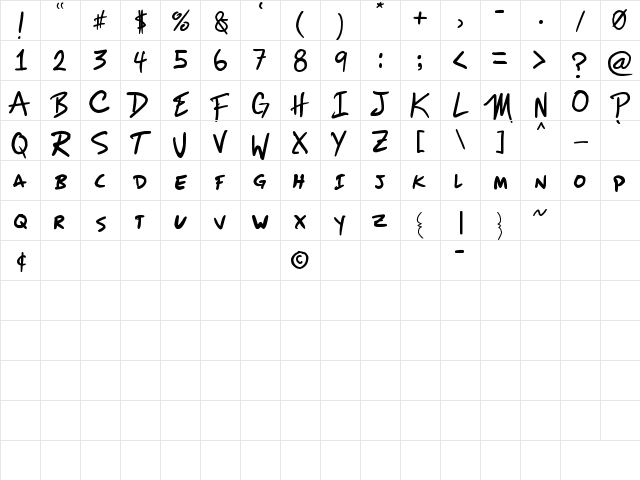
mizike Regular
Design Context for mizike Typeface
mizike is a composed and adaptable typeface that performs quietly and consistently across a wide range of design contexts.